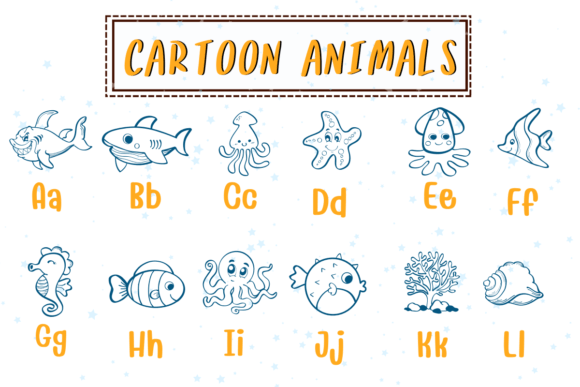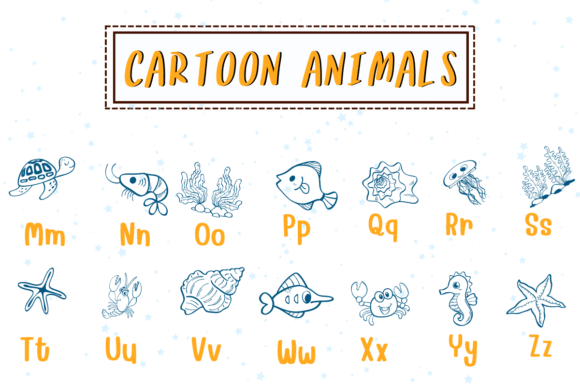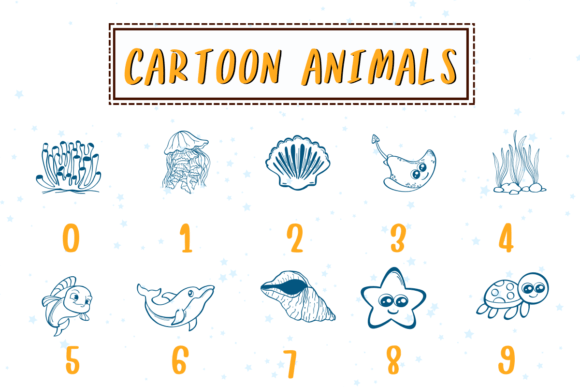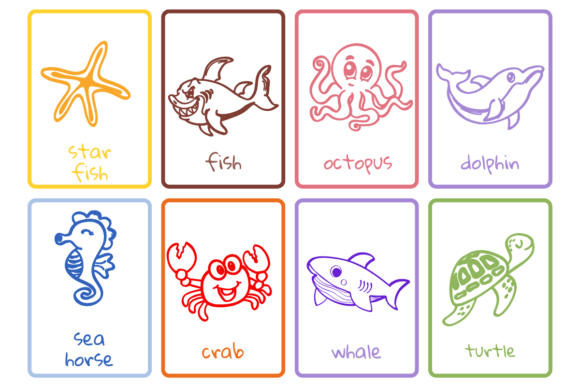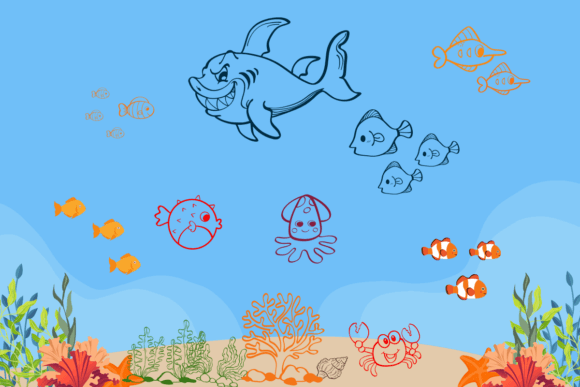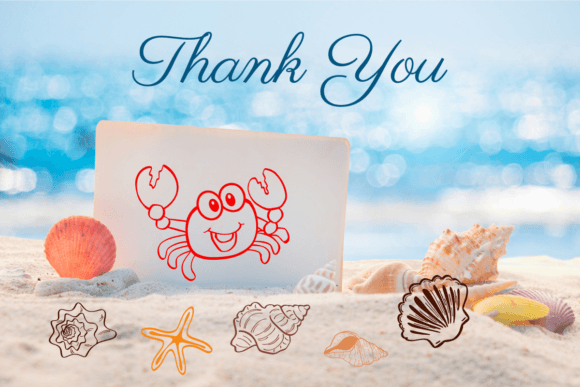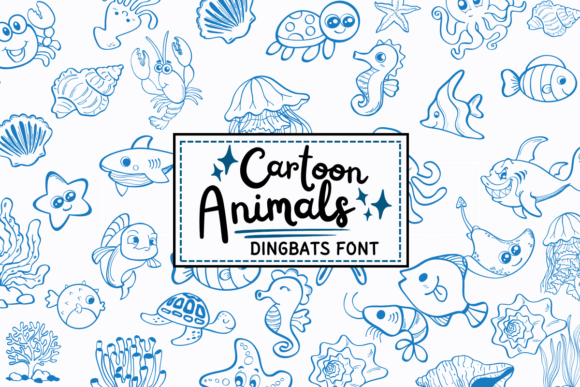
Cartoon Animals Font: Add a Touch of Whimsy to Your Designs
Are you looking for a fun and playful font to add a dash of personality to your projects? Look no further than the Cartoon Animals Font! This delightful dingbat font features a variety of cute and friendly animal characters, making it perfect for designers, crafters, and educators alike.
What is Cartoon Animals Font?
Cartoon Animals Font is a unique and engaging font that replaces traditional letters with adorable animal characters. Each letter of the alphabet is represented by a different animal, from A to Z, making it an excellent choice for projects that require a touch of whimsy and fun. Whether you’re creating invitations, educational materials, or creative designs, this font is sure to delight your audience.
Features of Cartoon Animals Font
• Fun and playful design: The Cartoon Animals Font features a colorful and lively design that’s sure to capture the attention of your audience.
• Unique animal characters: Each letter of the alphabet is represented by a different animal, making it a great way to add visual interest to your projects.
• Dingbat font style: The font is designed in a dingbat style, which means that each character is a graphical representation, rather than a traditional letter.
• Perfect for kids’ projects: The cute and friendly animal characters make it an excellent choice for kids’ invitations, educational materials, and creative designs.
Uses of Cartoon Animals Font
The Cartoon Animals Font is versatile and can be used in a variety of projects, including:
• Kids’ invitations: Create fun and playful invitations for birthday parties, playdates, and other kids’ events.
• Educational materials: Use the font to create engaging and interactive educational materials, such as alphabet charts, flashcards, and worksheets.
• Creative designs: Add a touch of whimsy to your designs, such as posters, brochures, and social media graphics.
• Crafting projects: Use the font to create custom titles and headings for your crafting projects, such as scrapbooking, card making, and journaling.
Tips for Using Cartoon Animals Font
Here are some tips for getting the most out of the Cartoon Animals Font:
• Mix and match characters: Experiment with different character combinations to create unique and interesting designs.
• Use bright colors: The font is designed to be colorful, so don’t be afraid to use bright and bold colors to make your projects pop.
• Keep it simple: Don’t overcomplicate your design – the font is designed to be fun and playful, so keep your design simple and easy to read.
Font Name Cartoon Animals Font
Author PraewDesigns
The Cartoon Animals Font is a fun and playful dingbat font that’s perfect for adding a touch of whimsy to your projects. With its unique animal characters and colorful design, it’s an excellent choice for designers, crafters, and educators alike. Whether you’re creating kids’ invitations, educational materials, or creative designs, this font is sure to delight your audience. So why not give it a try and see how you can use it to add some fun and personality to your projects?
What type of font is Cartoon Animals Font?
The Cartoon Animals Font is a dingbat font, which means that each character is a graphical representation, rather than a traditional letter.
Can I use Cartoon Animals Font for educational projects?
Yes, the Cartoon Animals Font is perfect for educational projects, such as alphabet charts, flashcards, and worksheets.